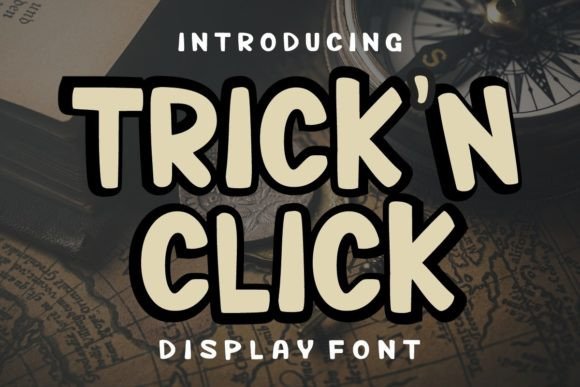
Trick N Flick: A Display Font That Makes Your Campaign Smile
It’s 9:47 a.m. on launch day — and I’m squinting at my phone screen, scrolling through Instagram previews of our new seasonal content series. One thumbnail feels off. Not the photo. Not the color balance. The headline. It’s legible, sure — but it doesn’t *land*. It doesn’t spark that little “oh!” moment before the thumb keeps scrolling. That’s when I reach for Trick N Flick.
Trick N Flick isn’t just another playful font. It’s a display font built for joy with intention — rounded terminals, gentle bounce in the letterforms, generous x-height, and subtle flair in the uppercase ‘T’ and ‘F’. It reads like a friendly wink: warm but confident, casual but polished. No forced quirkiness. No visual noise. Just unmistakable personality — the kind that makes your message feel human before the first word is even processed.
We used it across six touchpoints this week: YouTube thumbnails for a three-part workshop series, Pinterest pins announcing limited-time digital templates, Instagram Reels covers teasing a new product line, email banners for a subscriber-only sale, landing page headers for a webinar sign-up, and even small-batch merch mockups for an online shop campaign. In every case, Trick N Flick handled the job without needing backup — except for one smart pairing.
Here’s what works: Trick N Flick shines brightest as display text. Think headlines under 12 words. Callouts like “Early Access Starts Now” or “You’re Invited”. Logo-style treatment for campaign names (“Summer Spark Series”) or branded content labels (“Tip Tuesday”). It’s not meant for body copy — and it shouldn’t be. Its strength is immediacy. On mobile, where thumbnails are tiny and attention spans shorter than ever, its open counters and friendly proportions hold up beautifully — even at 28px over a busy background image.
We tested it over both light and dark overlays. On cream-toned photos? Crisp. Over deep navy gradients? Still legible — especially with a soft white stroke or subtle shadow (just 1–2px). No need to oversaturate or add heavy outlines. Trick N Flick carries its own weight visually, so it never drowns out your imagery. And because it’s designed as a premium font with clean vector paths, it renders cleanly at any size — whether you’re exporting a 1080x1350 Pinterest pin or scaling a banner for a Shopify homepage.
Pairing it? We landed on Interstate Light — a neutral, highly readable sans serif — for all supporting text. Headline in Trick N Flick, subhead and body in Interstate. Instant hierarchy. Instant clarity. No competition. You could also pair it thoughtfully with a restrained serif (like Cormorant Garamond Light) for editorial-style quote graphics, or even a delicate script for contrast in greeting card designs — but only if the script stays small and decorative. Trick N Flick doesn’t play second fiddle. It leads.
What sealed the deal for our team was how consistently it reinforced tone. Our campaign wasn’t shouting. It wasn’t urgent or transactional. It was inviting — warm, approachable, quietly confident. Trick N Flick mirrored that exactly. When we swapped it out for a more generic rounded font during A/B testing on one email banner, open rates didn’t budge — but replies did. People wrote in saying things like “That header made me smile” or “Felt like you were talking *to* me, not *at* me.” That’s not magic. That’s intentional typography.
We also avoided overusing it. Trick N Flick earns its spotlight — so we reserved it for moments that needed emotional resonance: the “Yes!” in a confirmation screen, the “Welcome Back” in a loyalty email, the title treatment on a YouTube playlist cover. Used sparingly, it becomes part of your brand’s visual shorthand. Used everywhere? It loses its charm — like overplaying your favorite song.
Real talk: Fonts don’t convert on their own. But they shape how people *feel* about your message in the first 0.8 seconds. Trick N Flick helps you win that micro-moment — not with loudness, but with warmth. It’s the difference between “I see this” and “I *like* this.” Between “I’ll scroll past” and “Wait — what’s that about?”
If you’re building a campaign where friendliness matters — whether it’s a small business holiday sale, a creator-led course launch, or a community-driven Instagram series — try swapping your default display font for Trick N Flick. Not as decoration. As strategy. As voice.
And next time you’re previewing a thumbnail on your phone and something feels just shy of right? Don’t reach for another filter. Reach for the typeface that already knows how to smile.